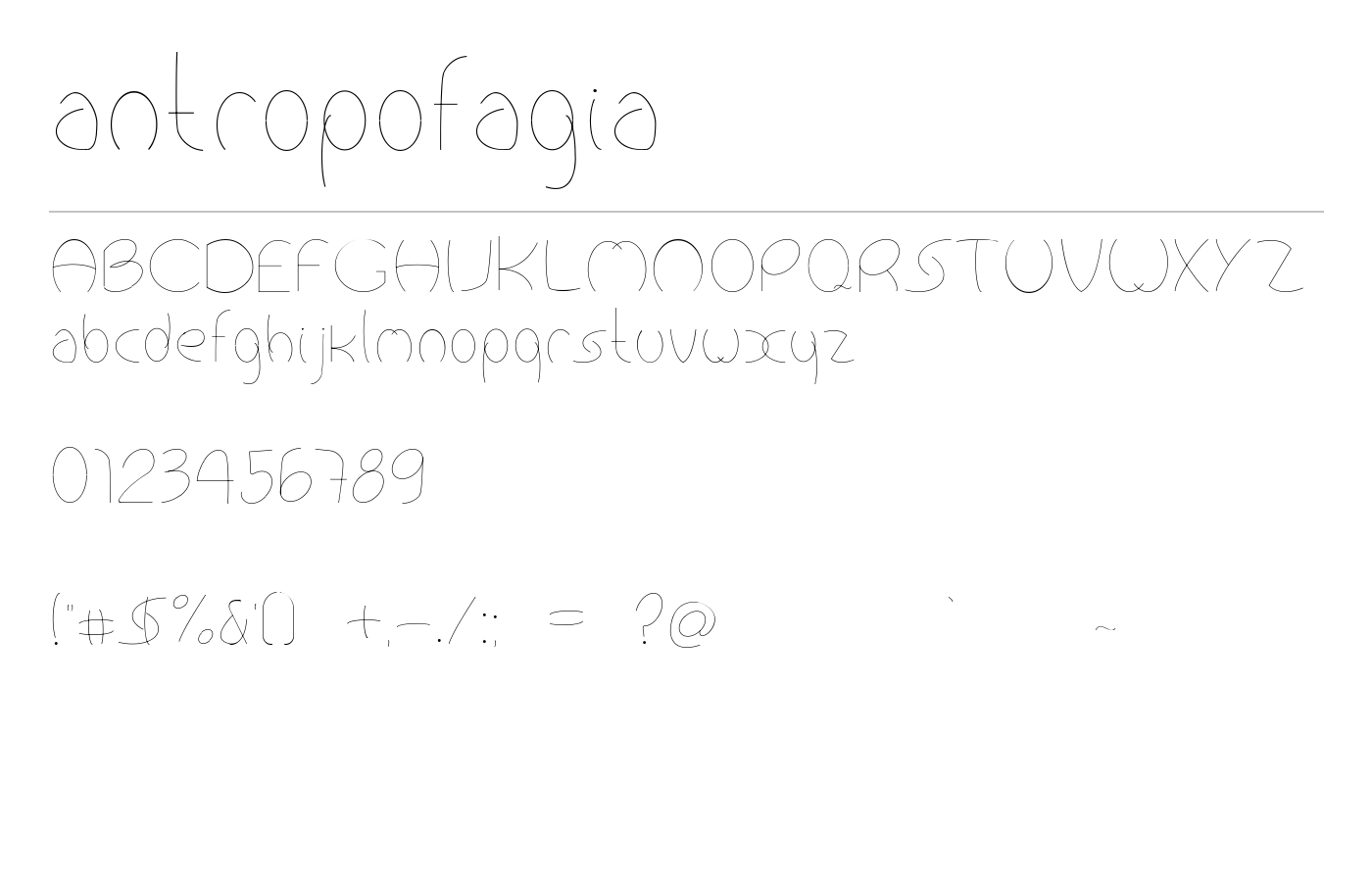
Antropofagia is a delicate, ultra-thin sans serif font with a hand-drawn, whimsical character that features tall, narrow letterforms and minimal stroke contrast. Its airy and slightly irregular shapes give it an artistic and playful personality, making it ideal for creative projects, informal branding, or expressive editorial designs that benefit from a unique, light, and modern touch. This font works best in large sizes where its fine details can be appreciated, especially in headlines and design accents rather than body text.
antropofagia Font
About antropofagia Font